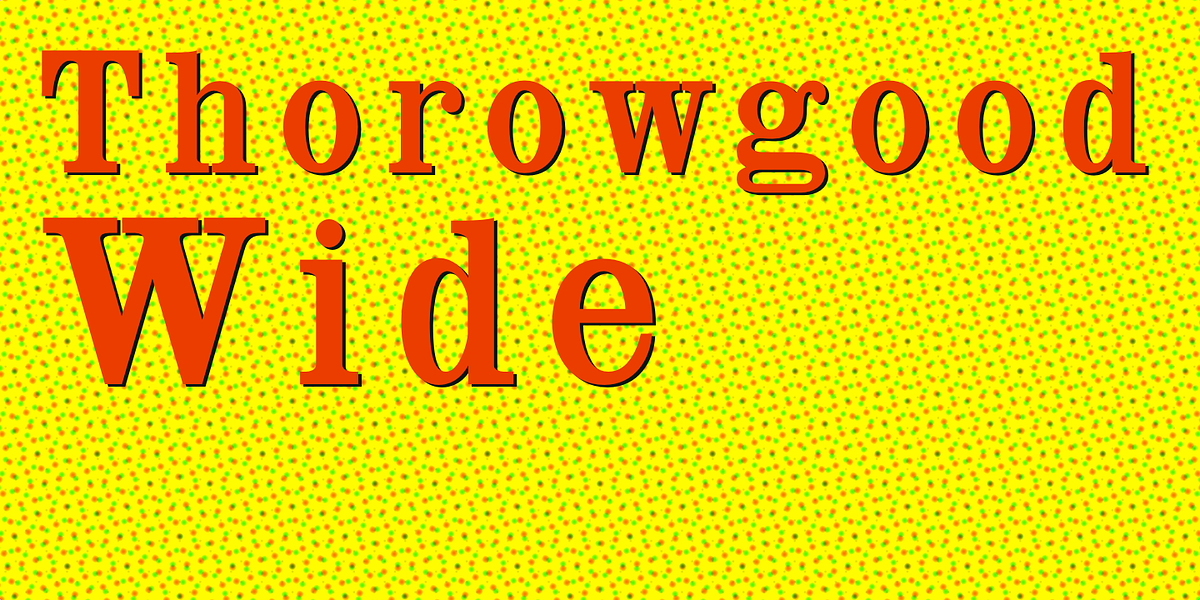
Thorowgood Wide
This font is a distinctive take on the Clarendon typeface. It features a tall x-height and a wide letterform, setting it apart from more traditional Clarendons. Notably, the capital letters B, D, P, and R have unique rounded openings where the horizontal and vertical stems meet. This detail adds a touch of character to an already bold and classic design.